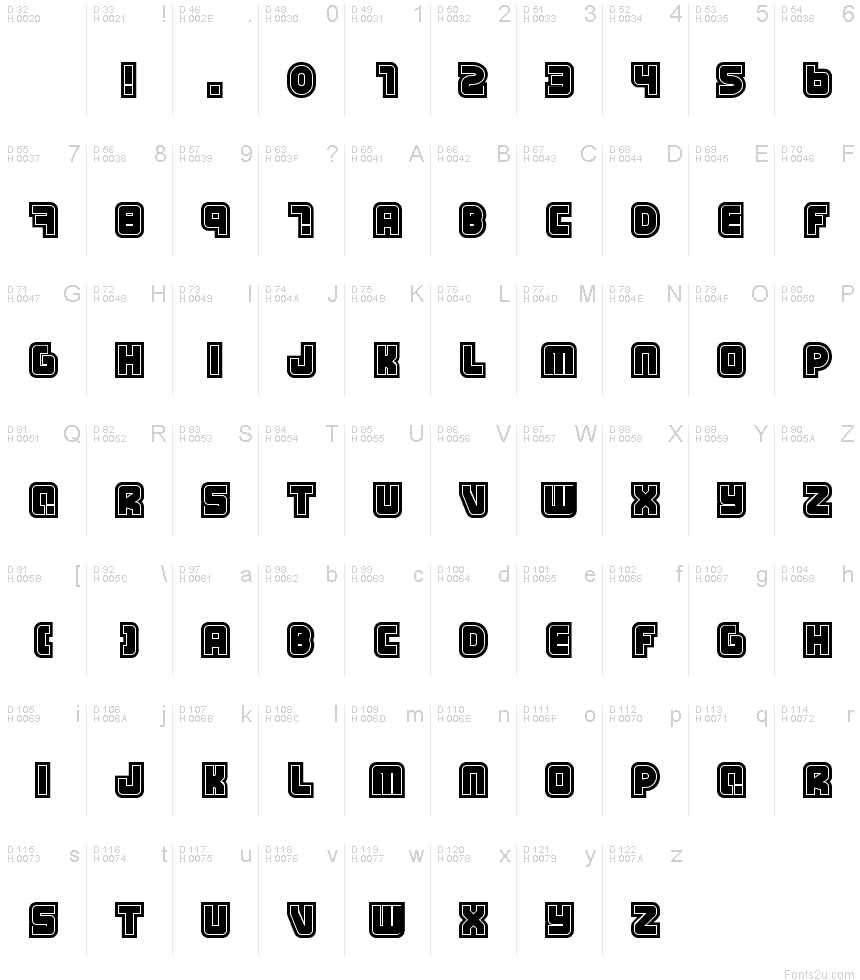
samarin
Samarin by Fenotype is a free inline techno caps display font with a chunky, arcade-era feel. The letters are built from squared forms with heavily rounded corners and a double-line treatment that gives the alphabet a lit-sign, control-panel rhythm rather than a neutral modern look.
That makes it a natural fit for game titles, poster headlines, album covers, badge-style branding, and title cards where short words need a sealed, modular presence. As a free font, it also works well for monograms or drop caps, because the broad shapes and inset line hold together as a clear graphic unit.